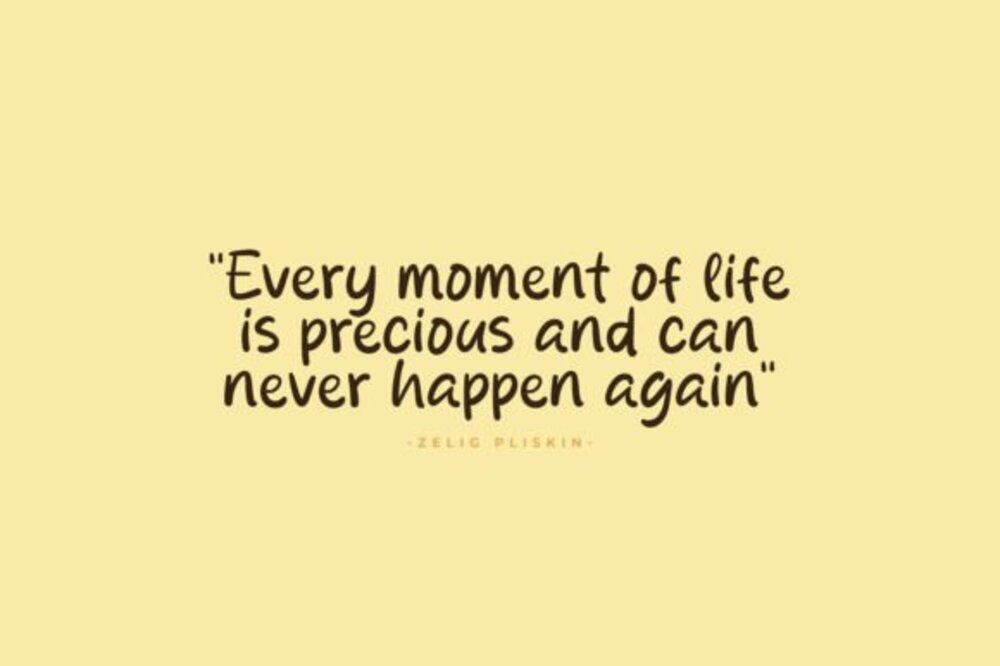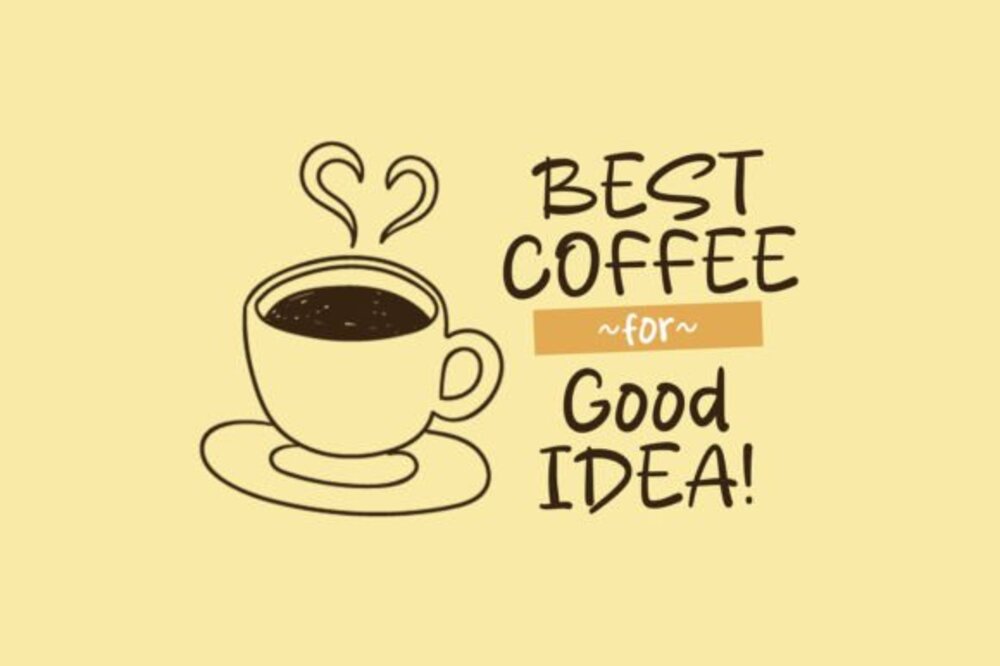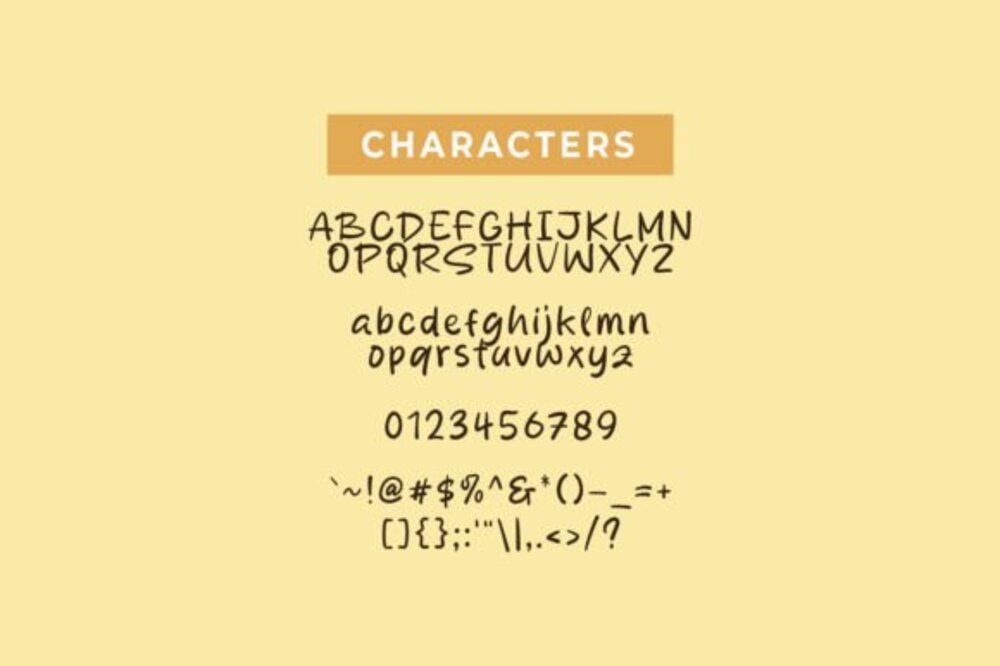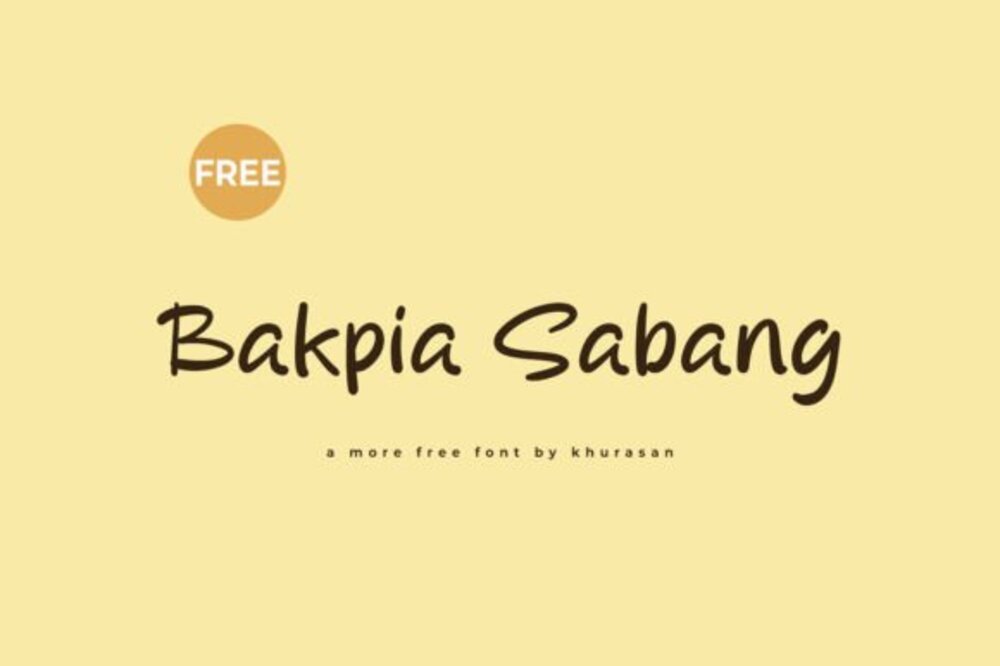
Bakpia Sabang Font
Bakpia Sabang Font is a distinctive and bold typeface that captures a unique blend of traditional and modern elements. With its strong, angular lines and slightly curved edges, it conveys a sense of heritage while maintaining a contemporary appeal. Perfect for food branding, cultural projects, and eye-catching headlines, Bakpia Sabang Font stands out with its memorable style, offering both character and readability for a wide range of designs.